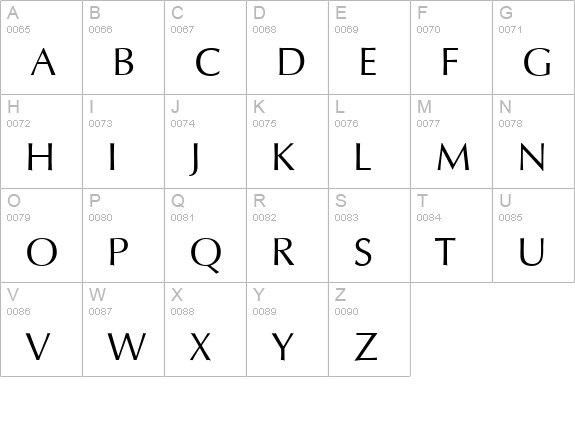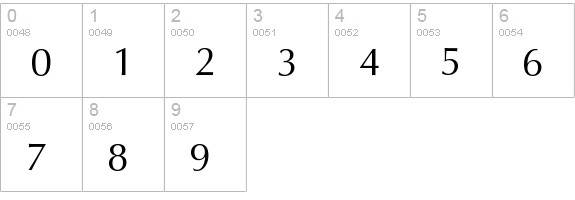
QTOptimum Regular Font Details
QTOptimum Regular is the standard, neutral variant in the QTOptimum typeface family \xE2\x80\x94 well suited to general body text, paragraphs, and standard typographic work.
QTOptimum Regular font is a versatile typeface that combines elegance with clarity. With its clean lines and balanced proportions, this font is perfect for a wide range of design projects. Whether you're working on a logo, a website, or a printed publication, QTOptimum Regular will bring a touch of sophistication to your work. One of the best things about QTOptimum Regular is that it is free. Yes, you read that right – this high-quality font is freely available to download at FontsMarket.com. This means that you can enhance your designs without having to spend a dime. It's a fantastic opportunity for designers, students, and anyone else looking to add a professional touch to their projects without breaking the bank. The QTOptimum Regular font offers a comprehensive character set, including uppercase letters, lowercase letters, numbers, and punctuation marks. Its legibility and readability make it suitable for both large and small sizes, ensuring that your message is clear and easily understood by your audience. The timeless elegance of QTOptimum Regular font makes it suitable for a variety of design styles. Whether you're going for a classic look or a more contemporary feel, this font will effortlessly adapt to your vision. Its versatility makes it a valuable asset in any designer's toolkit. So why wait? Go ahead and download QTOptimum Regular font today at FontsMarket.com. With its combination of elegance, clarity, and the fact that it's free, this font is an invaluable resource for any designer or creative professional. Don't miss out on the opportunity to enhance your designs and make a lasting impression with QTOptimum Regular font.